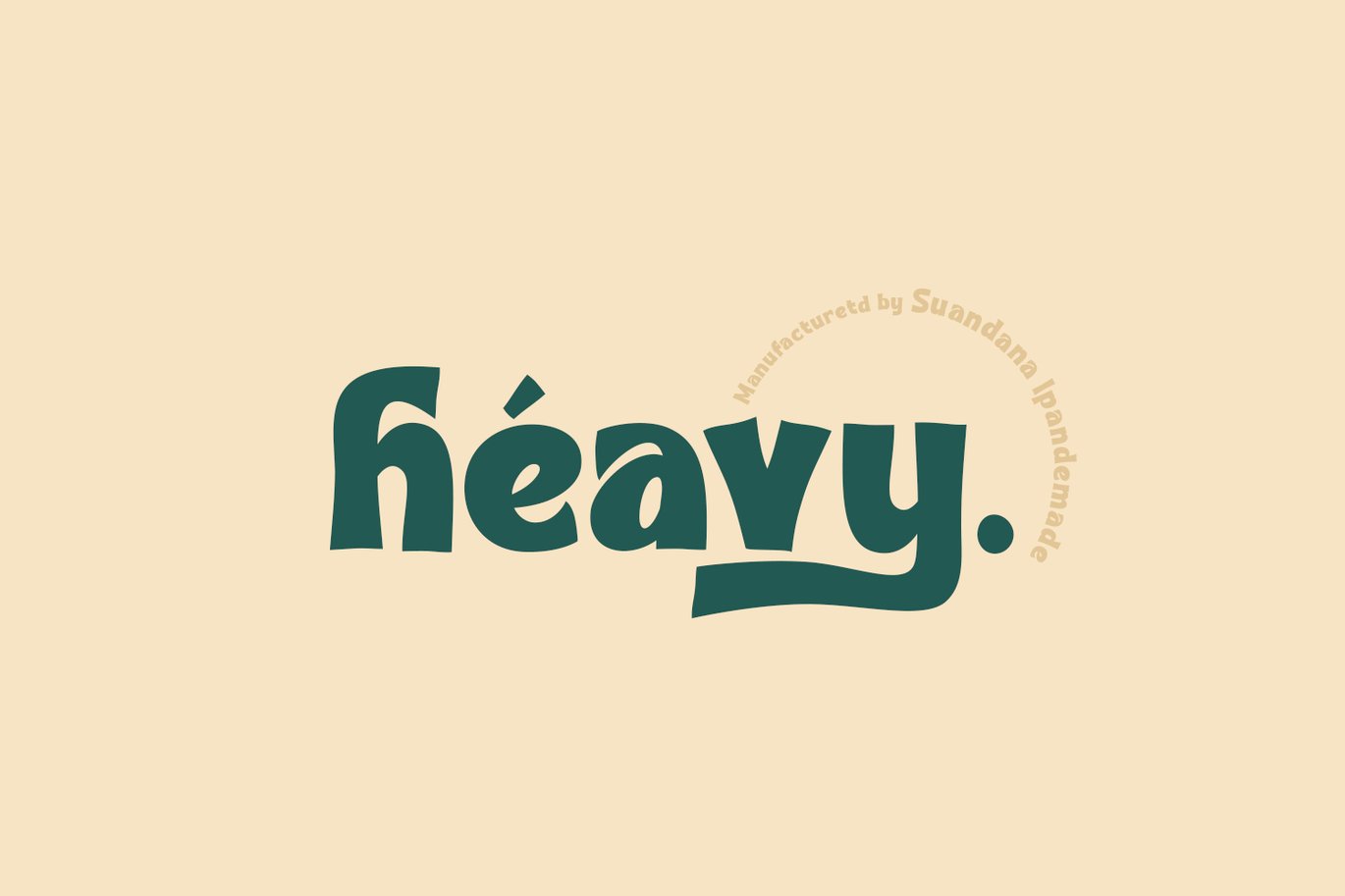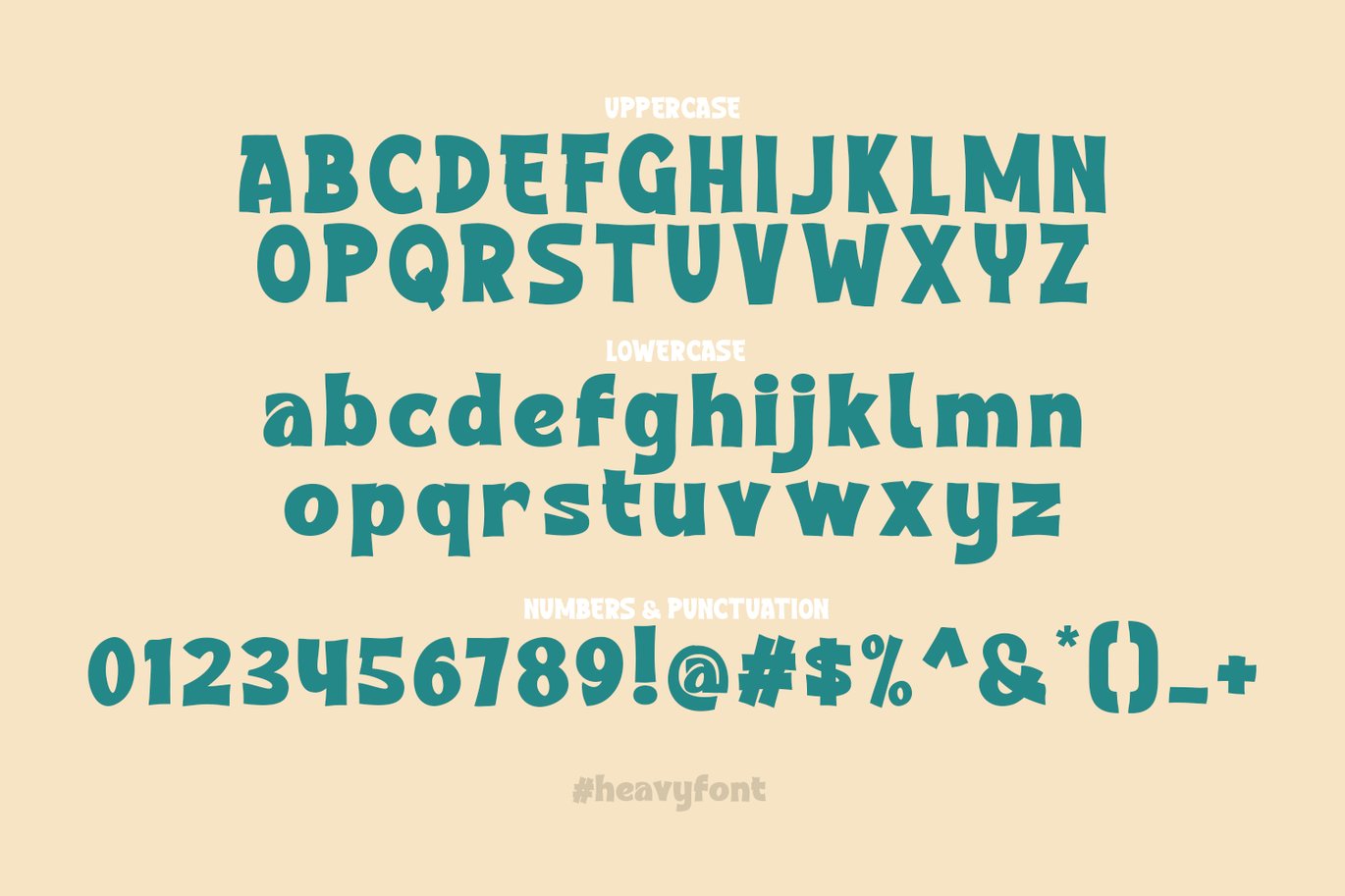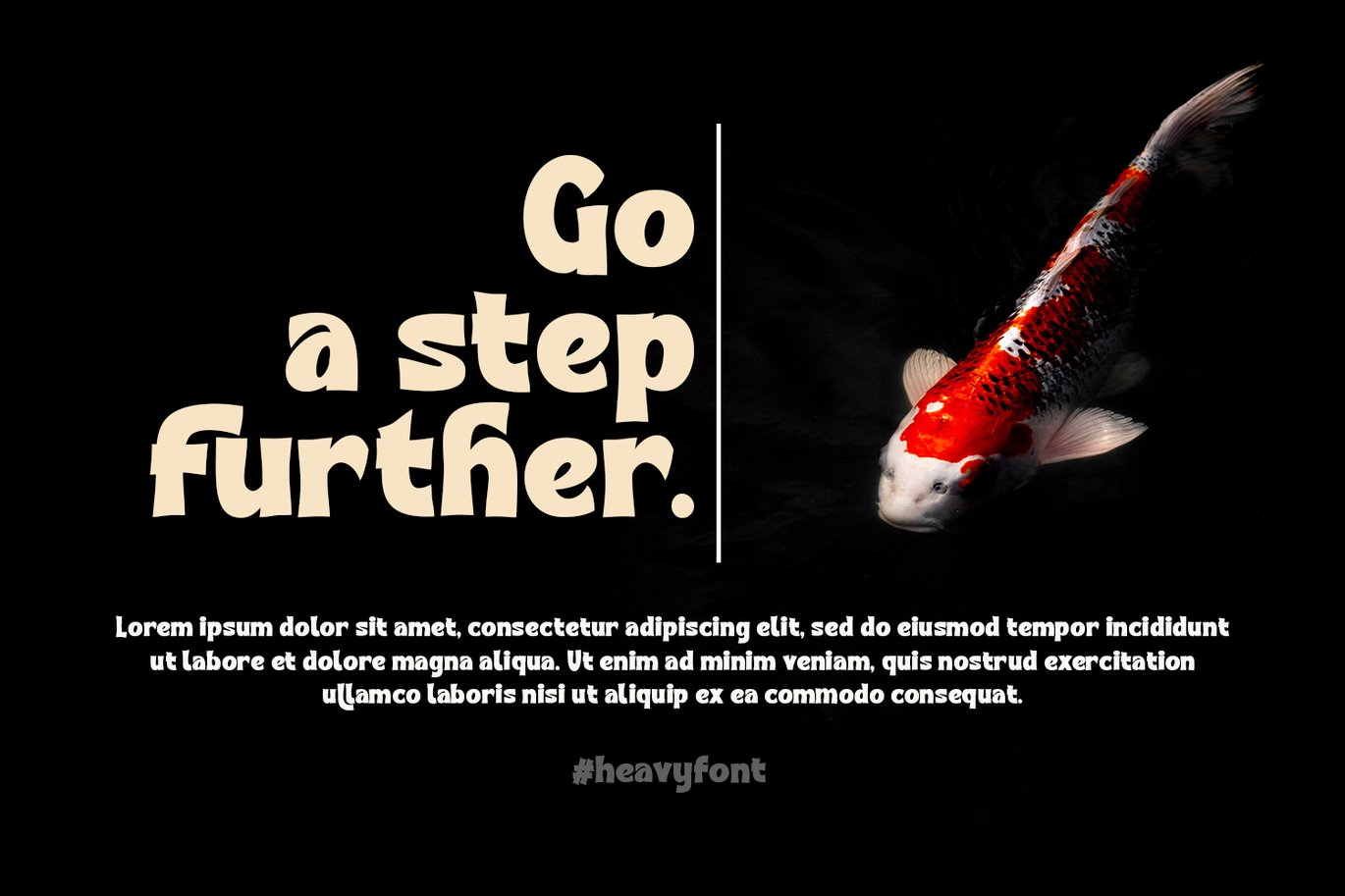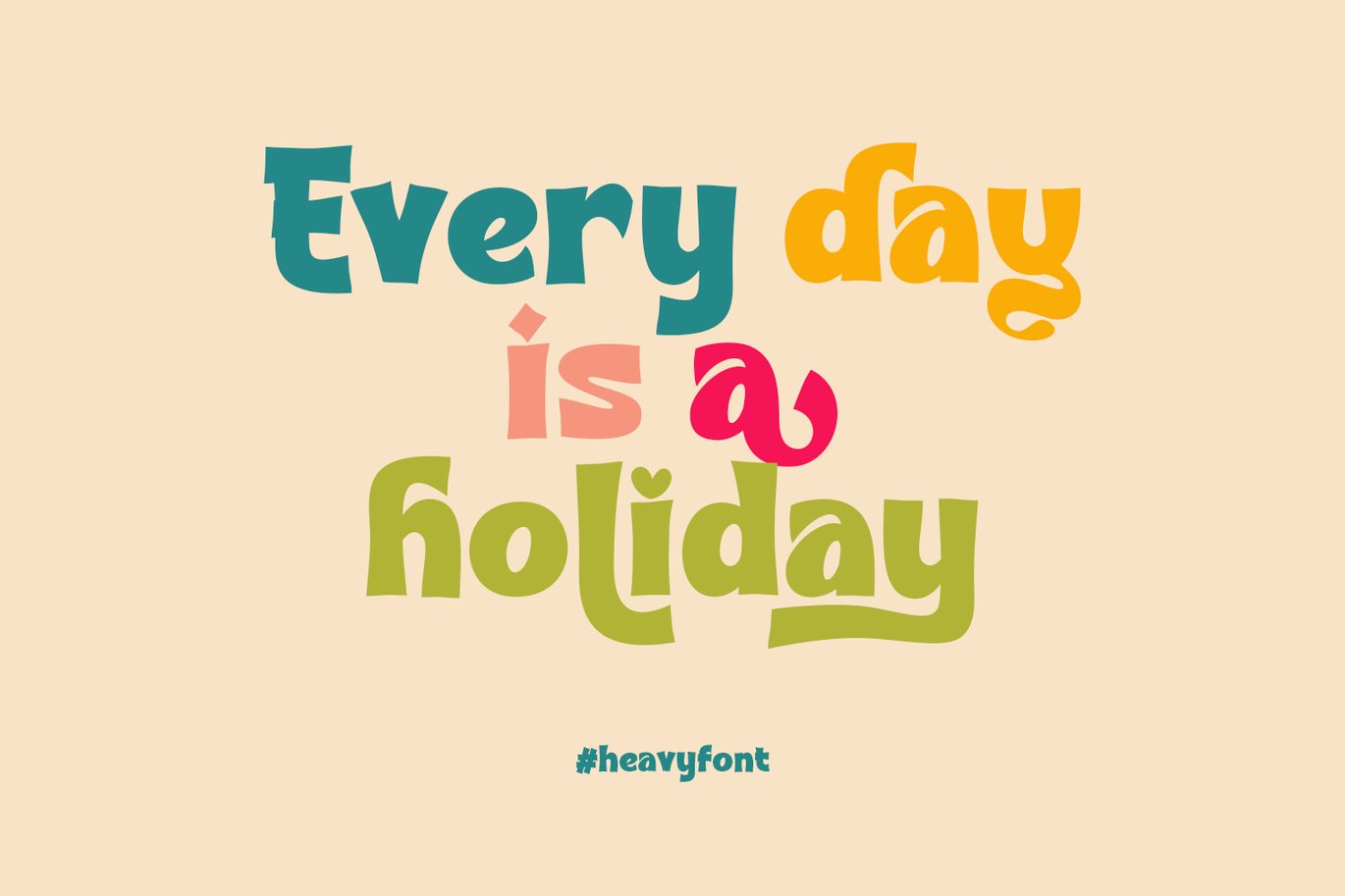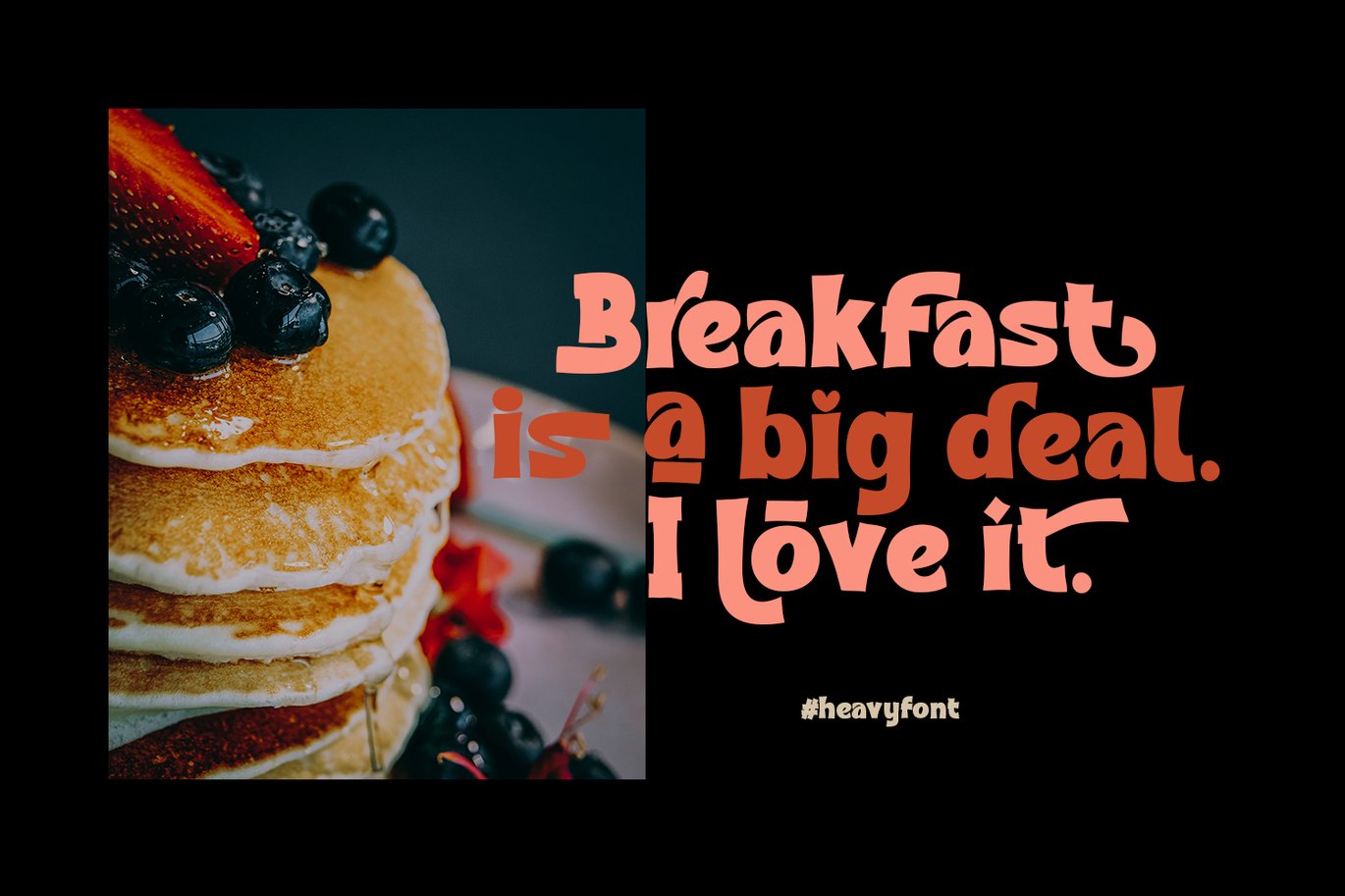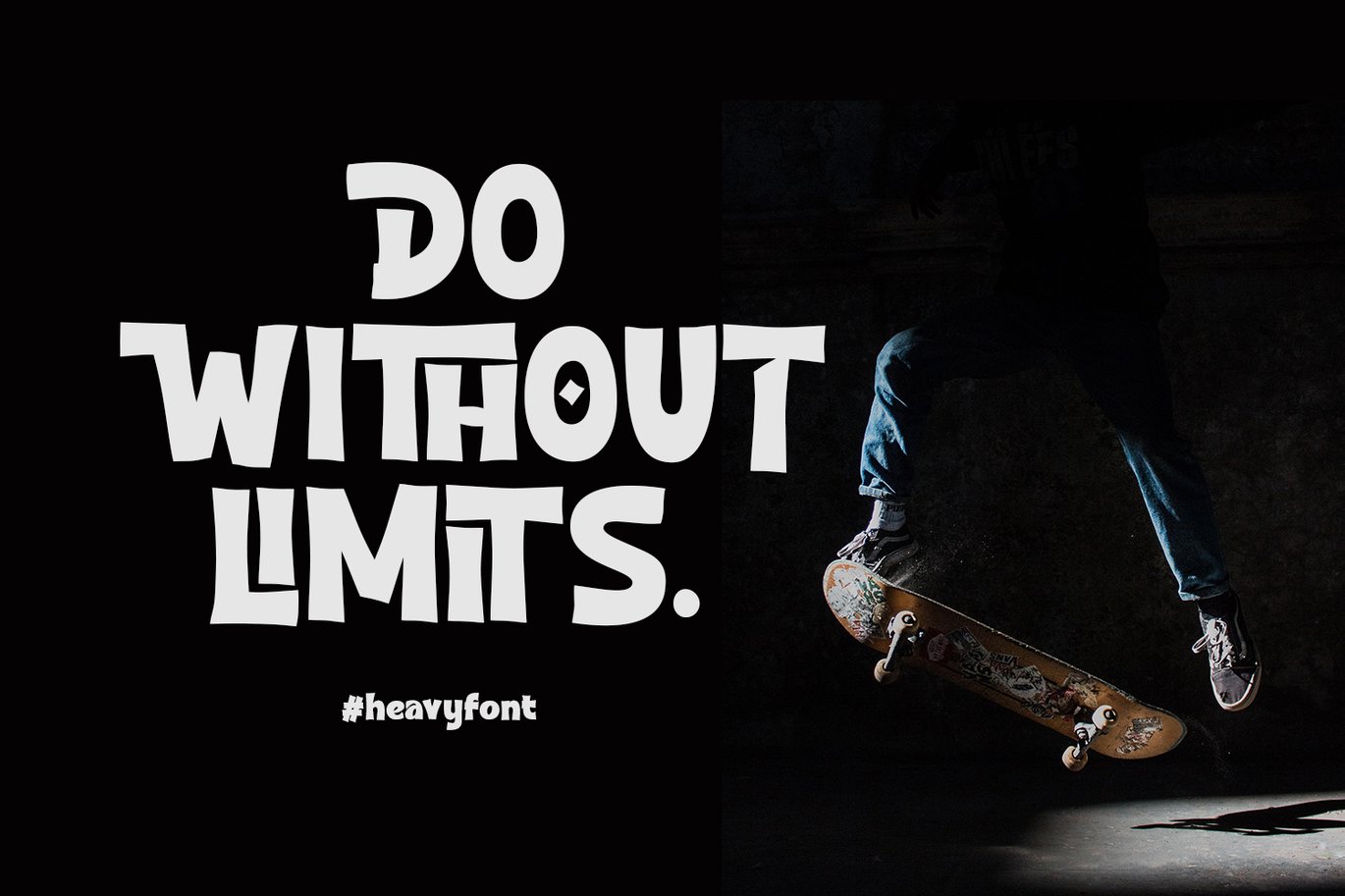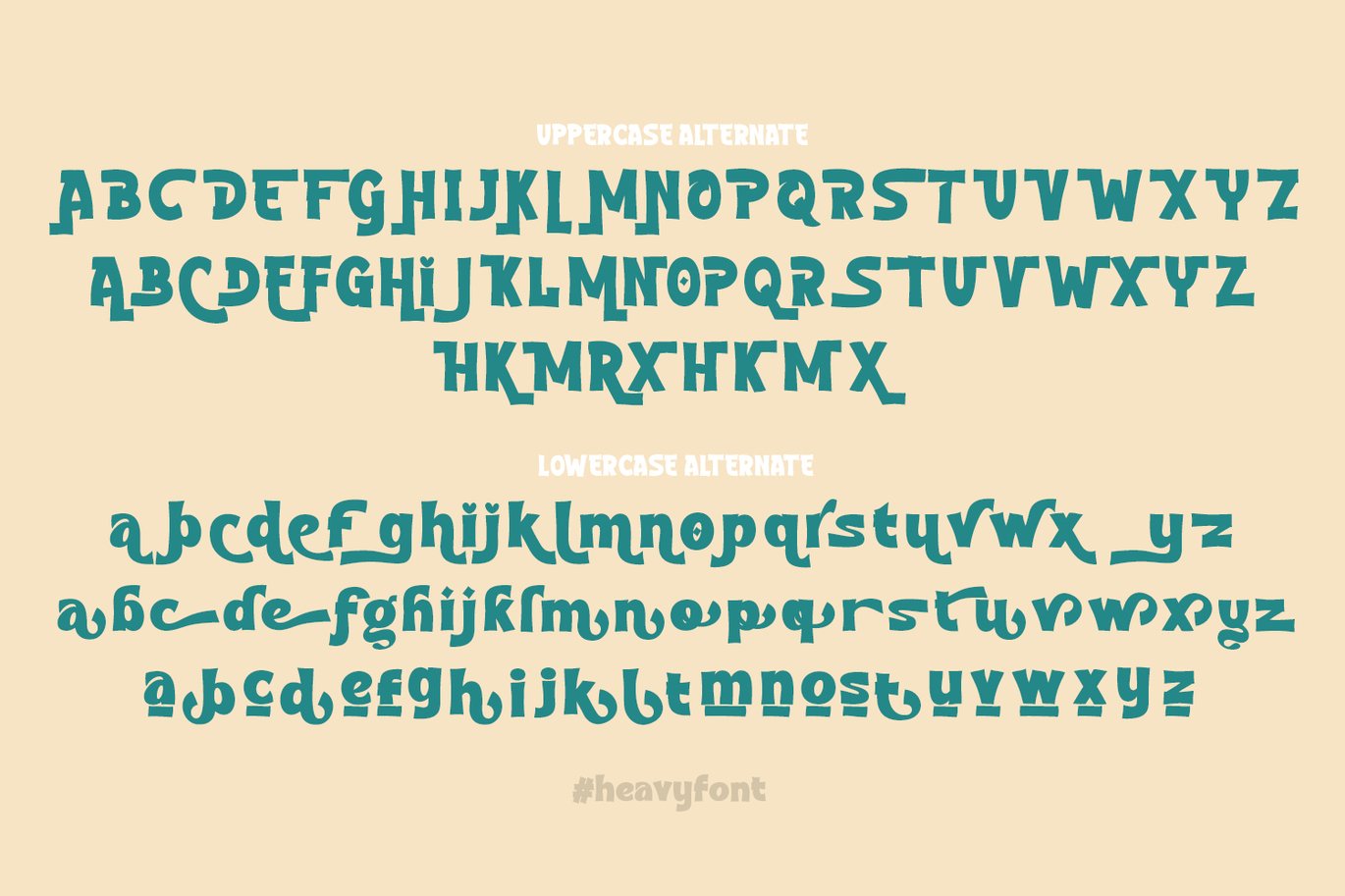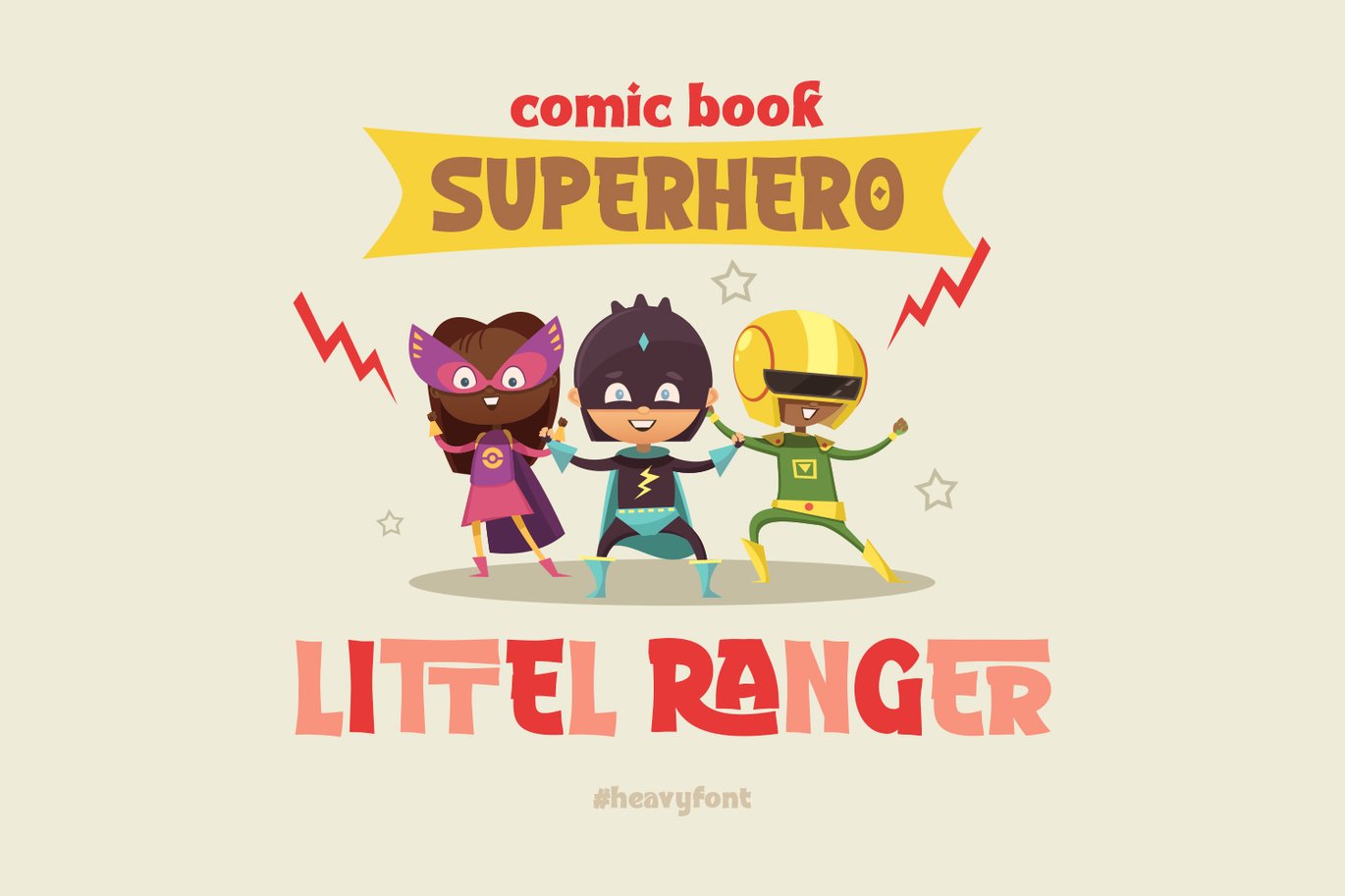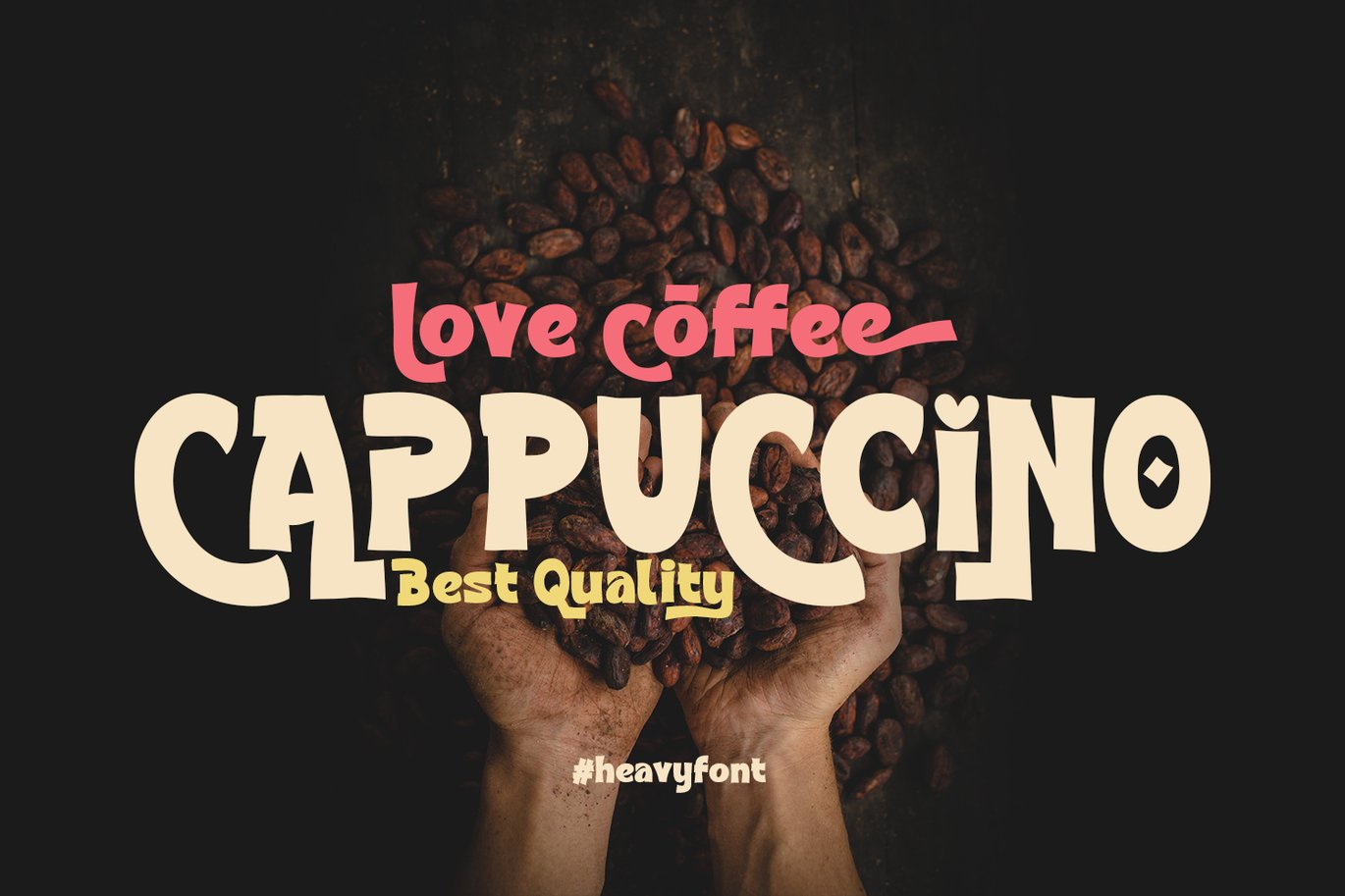
Heavy – Bold Font
Introducing Heavy is a fun bold font and will be perfect for book, title branding, product packaging, invitation, quotes, t-shirt, label, poster, logo etc.
- Number & Symbol
- International Glyphs